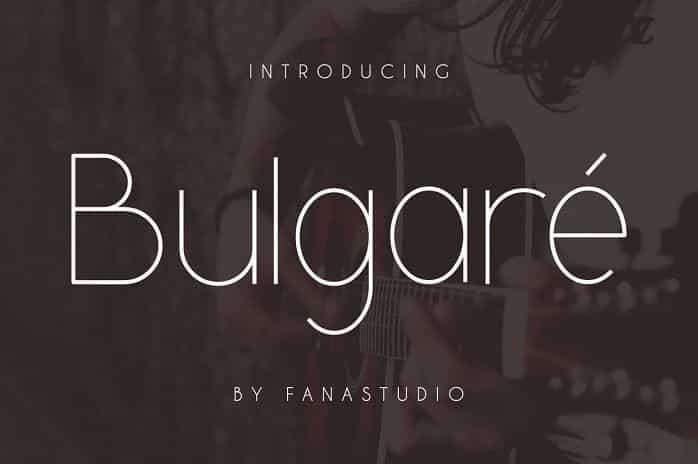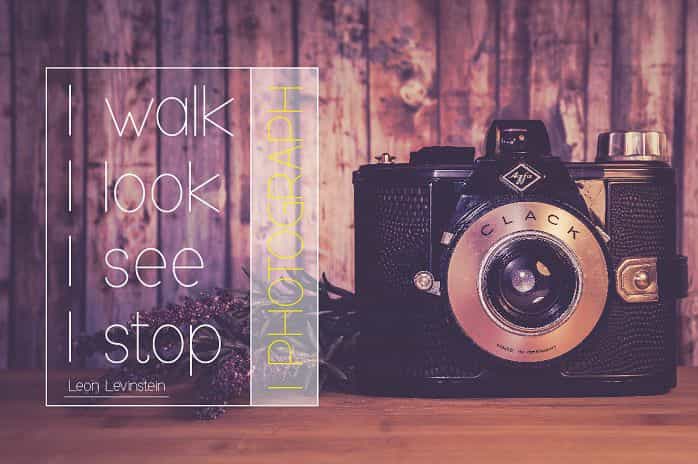
Introducing Bulgare Typeface. Bulgare is Our new product that was created with the famous Bulgari logo in mind. It is simple yet elegant, made with accuracy and designed to fit you well. the best for the combination of your design work and a clear line as well as several different weights which are very comfortable in the design area you can easily read them.